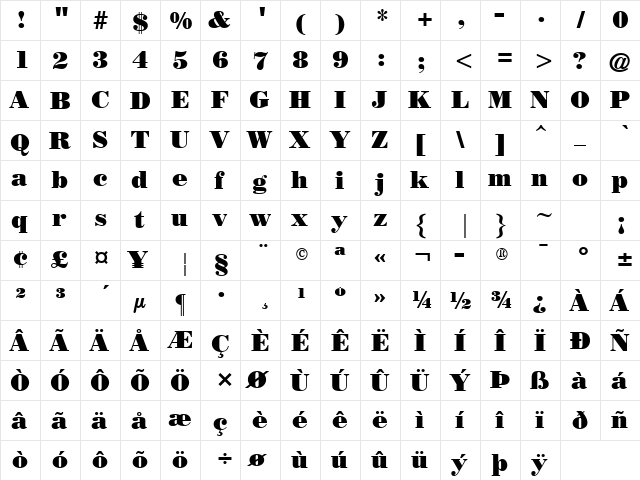
Poster Bodoni CG ATT Regular
Design Context for Poster Bodoni CG ATT Typeface
Poster Bodoni CG ATT offers clean, dependable letterforms without strong stylistic allegiance, making it a practical choice for designers who need flexibility.
Pro Tip: Pair Poster Bodoni CG ATT with a font of contrasting weight or personality to build a more expressive typographic hierarchy.